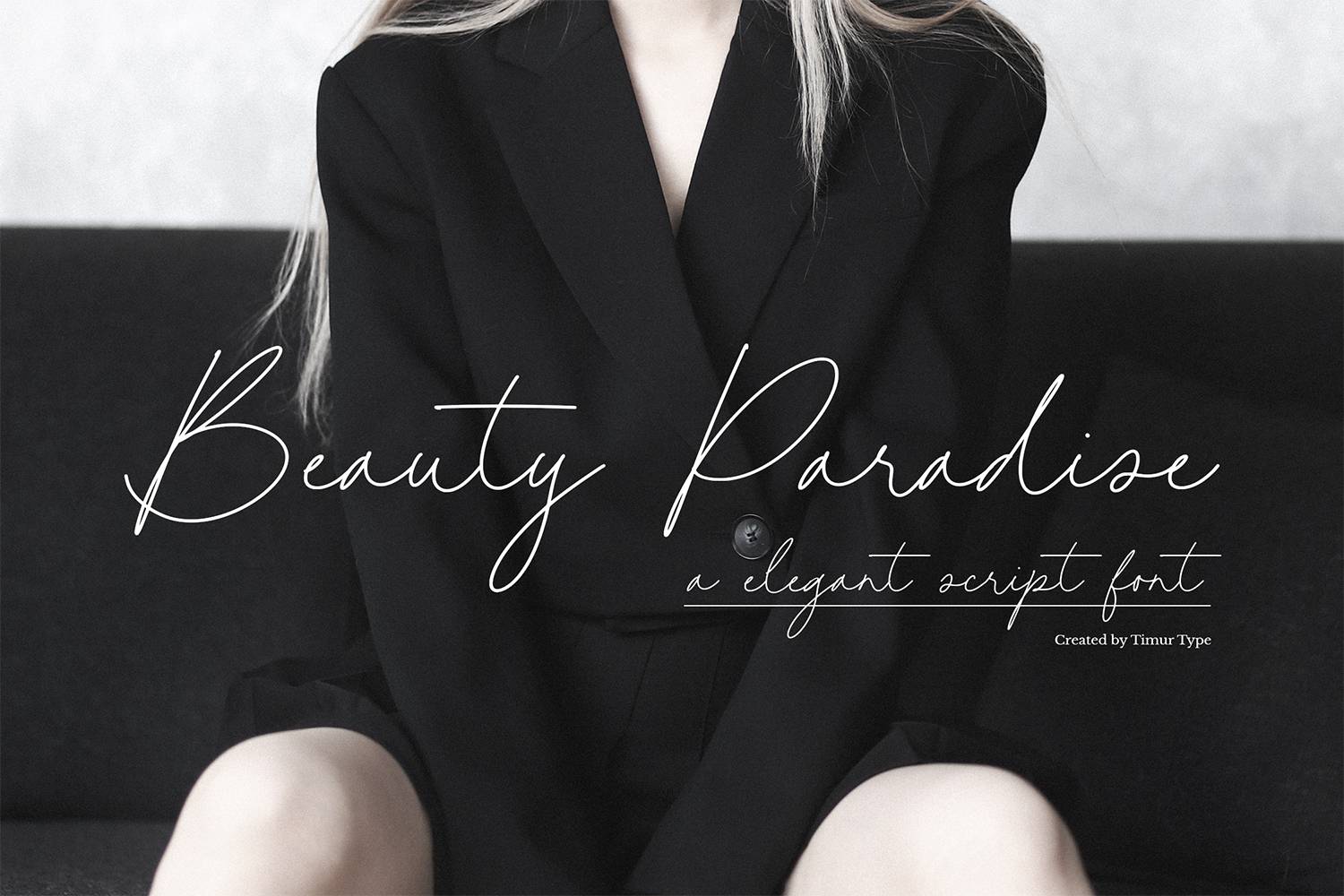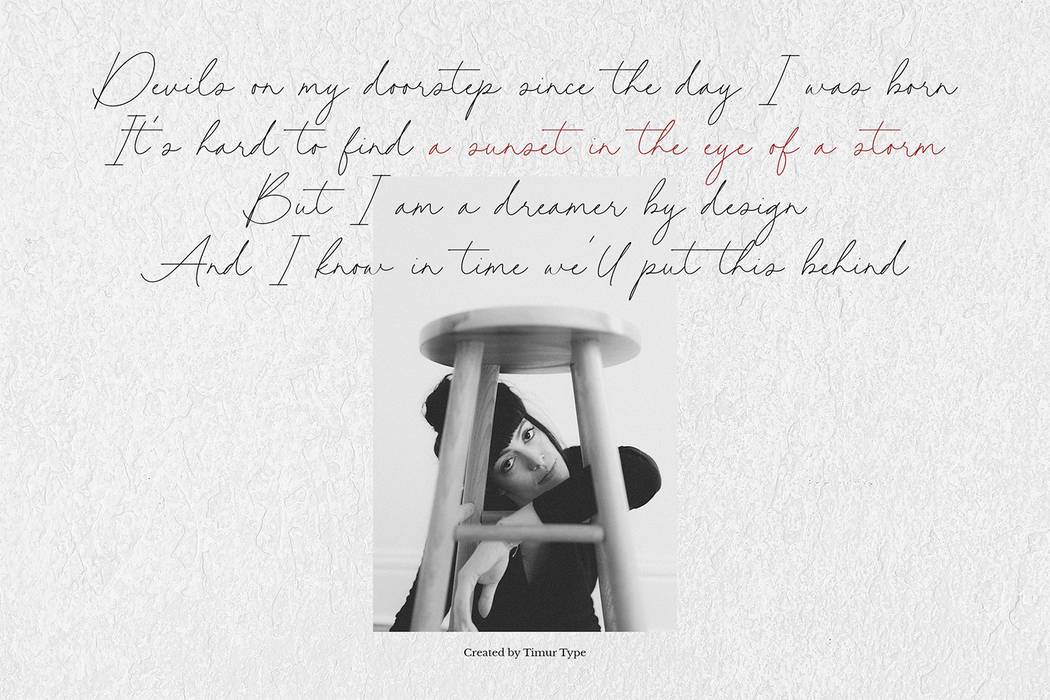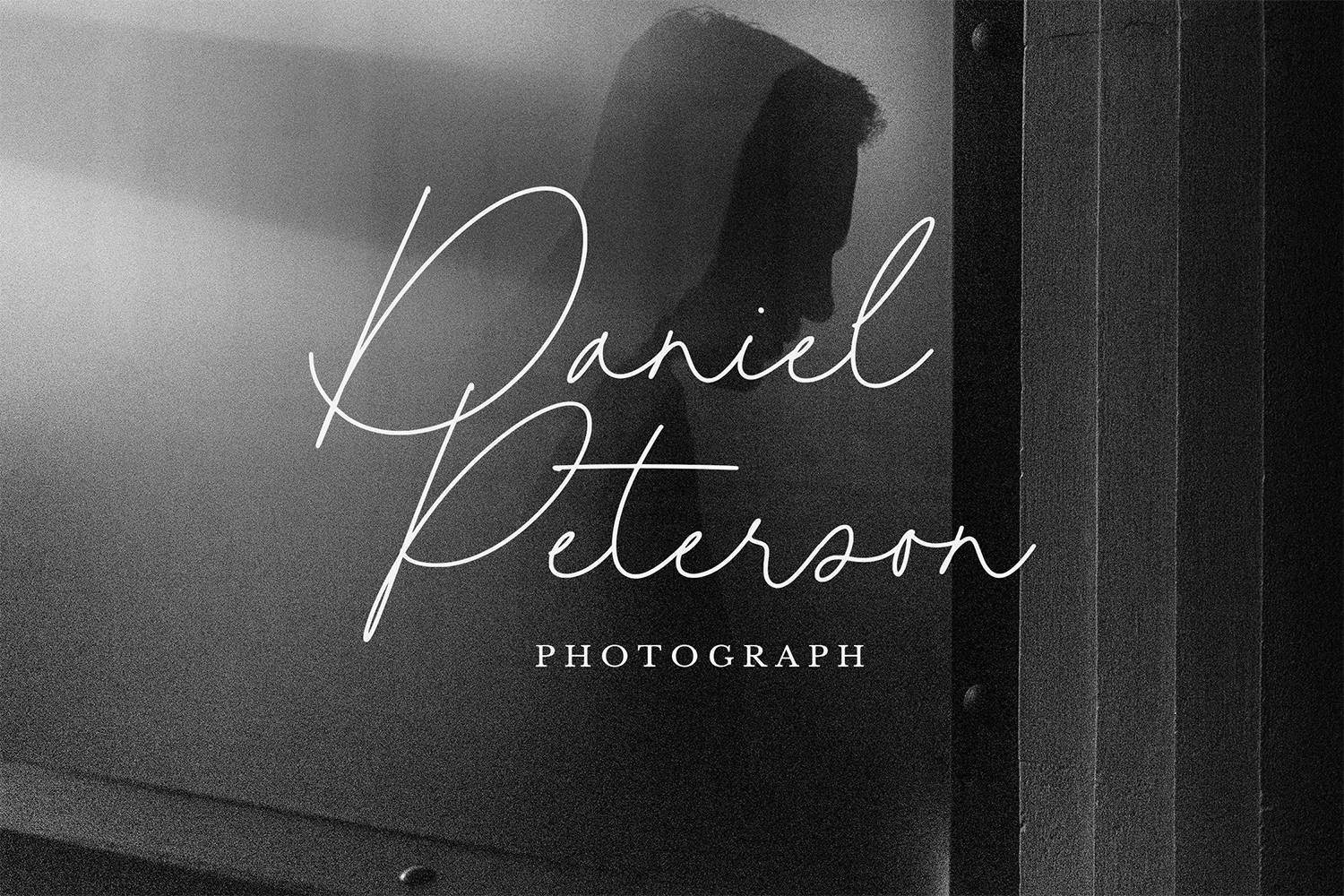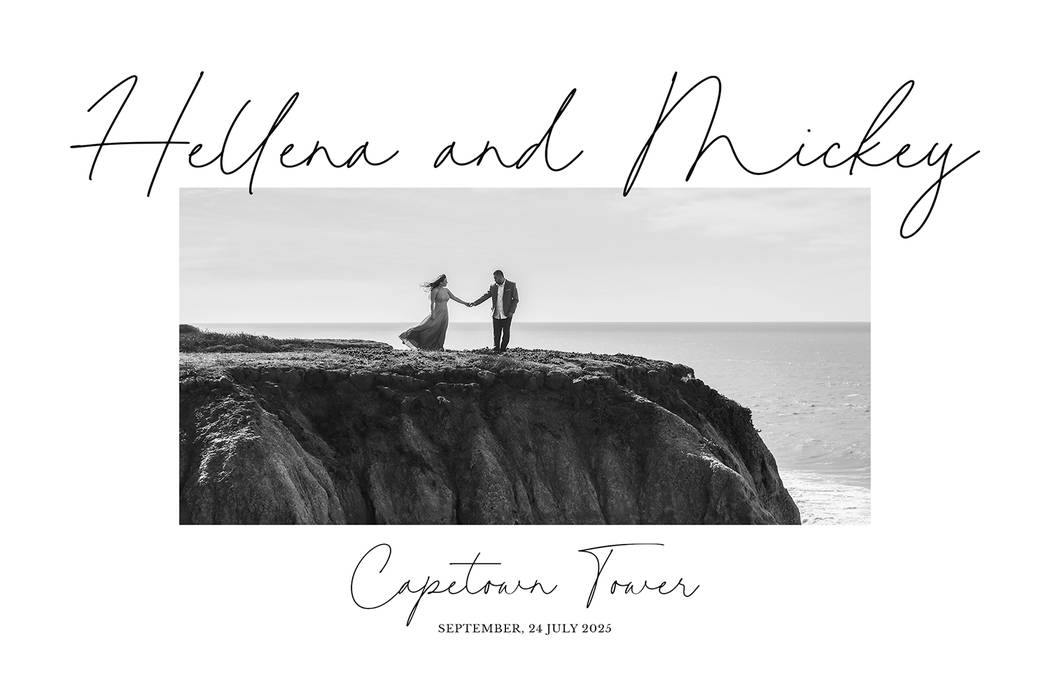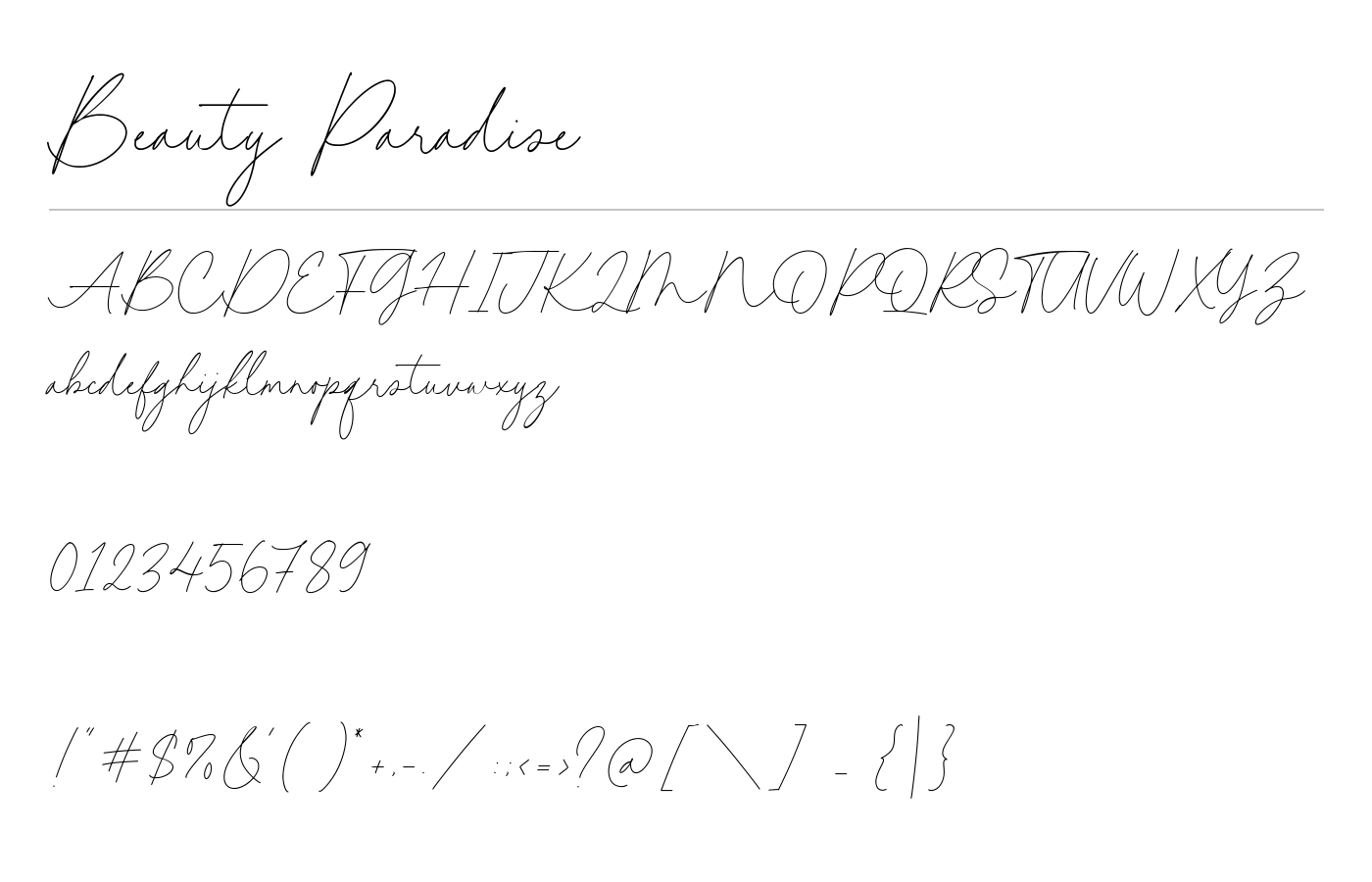
Beauty Paradise is an elegant, delicate script font with thin, flowing strokes that evoke a light and graceful handwritten style. Its slim, airy letterforms and subtle curves create a romantic and sophisticated feel, making it ideal for beauty brands, fashion, invitations, and luxury packaging where a personal, refined touch is desired. This font’s graceful simplicity adds charm and elegance without overwhelming the design, perfect for headlines and decorative text.
Beauty Paradise Font
About Beauty Paradise Font